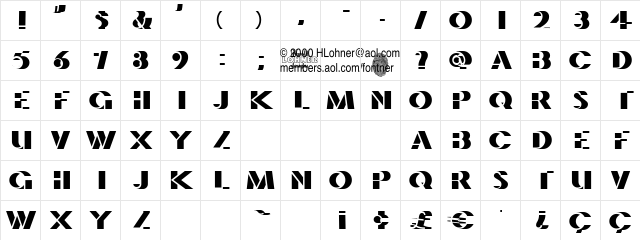
Le Film Shadow
| Copyright | Le Film computer font v1.0 00 Harold Lohner "  "http://members.aol.com/fontner Based on the classic Art Deco font of the same name, originally designed by Marcel Jacno and released by Deberny & Peignot, 1927 |
Design Context for Le Film Typeface
Le Film is built around its visual character rather than neutral utility — its distinctive forms are designed to make an impression at display sizes.